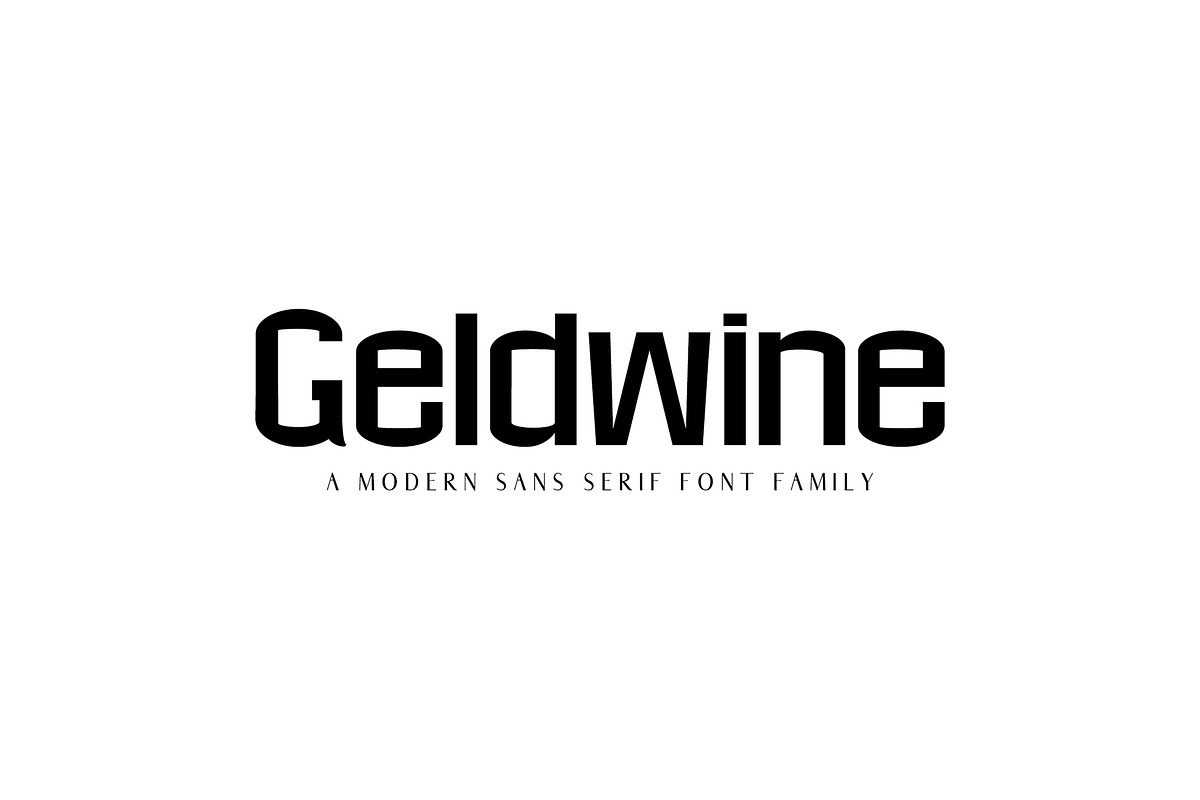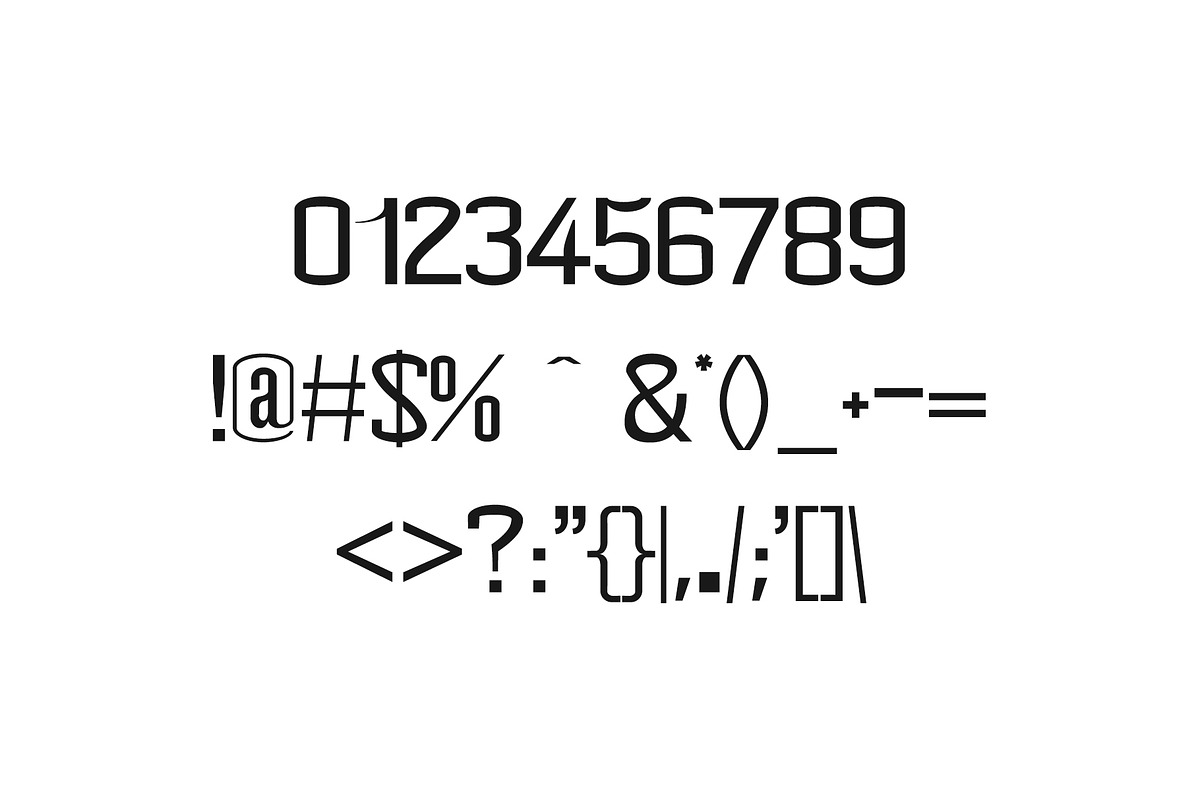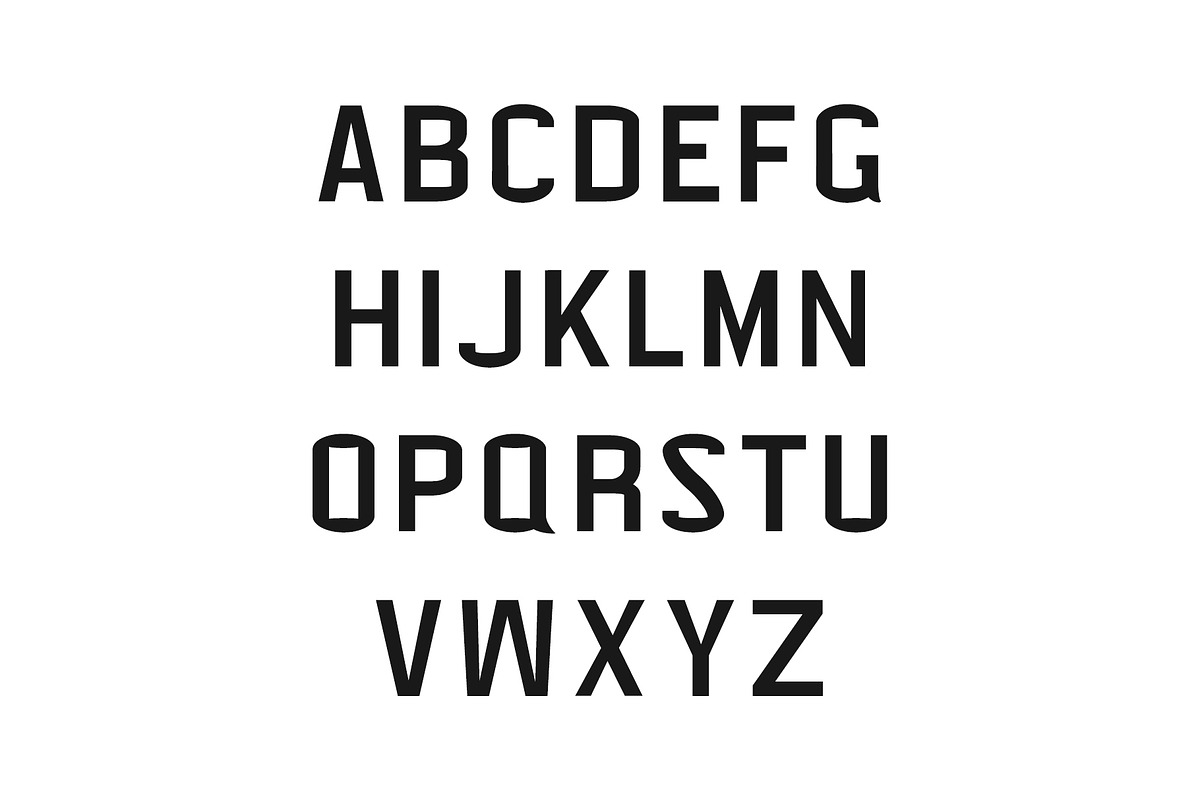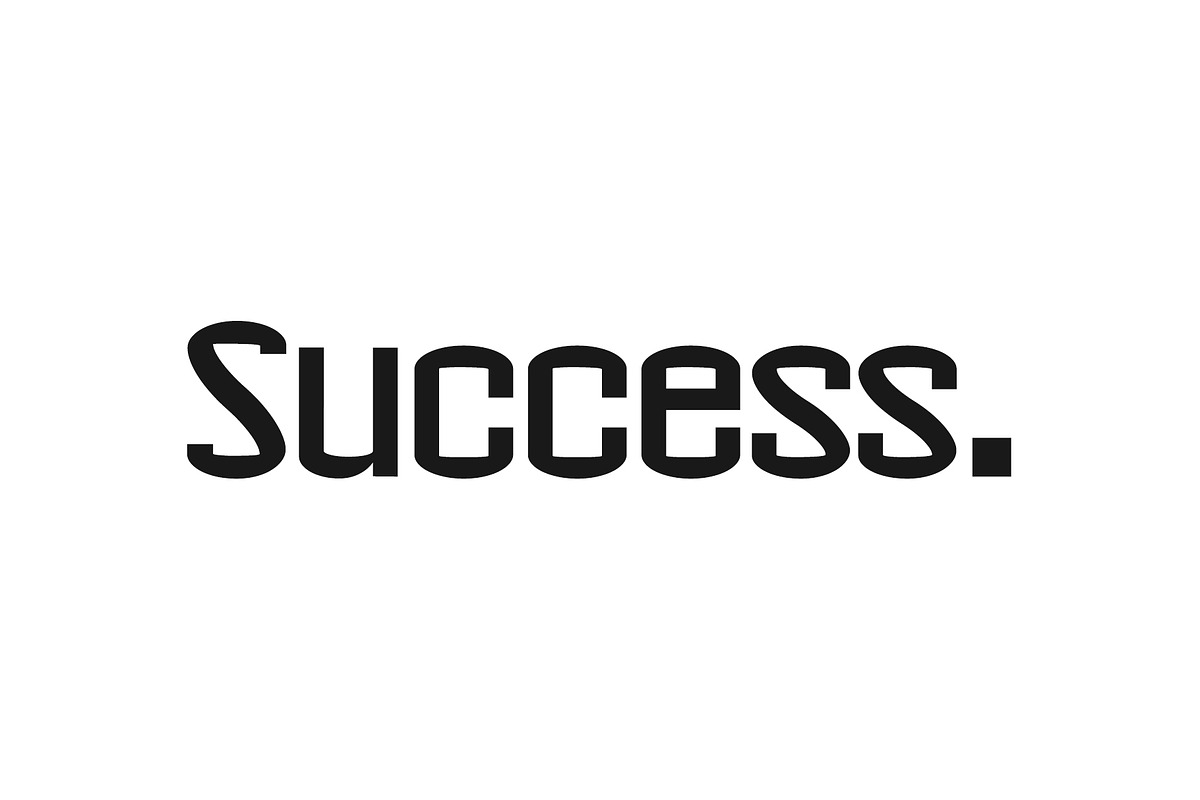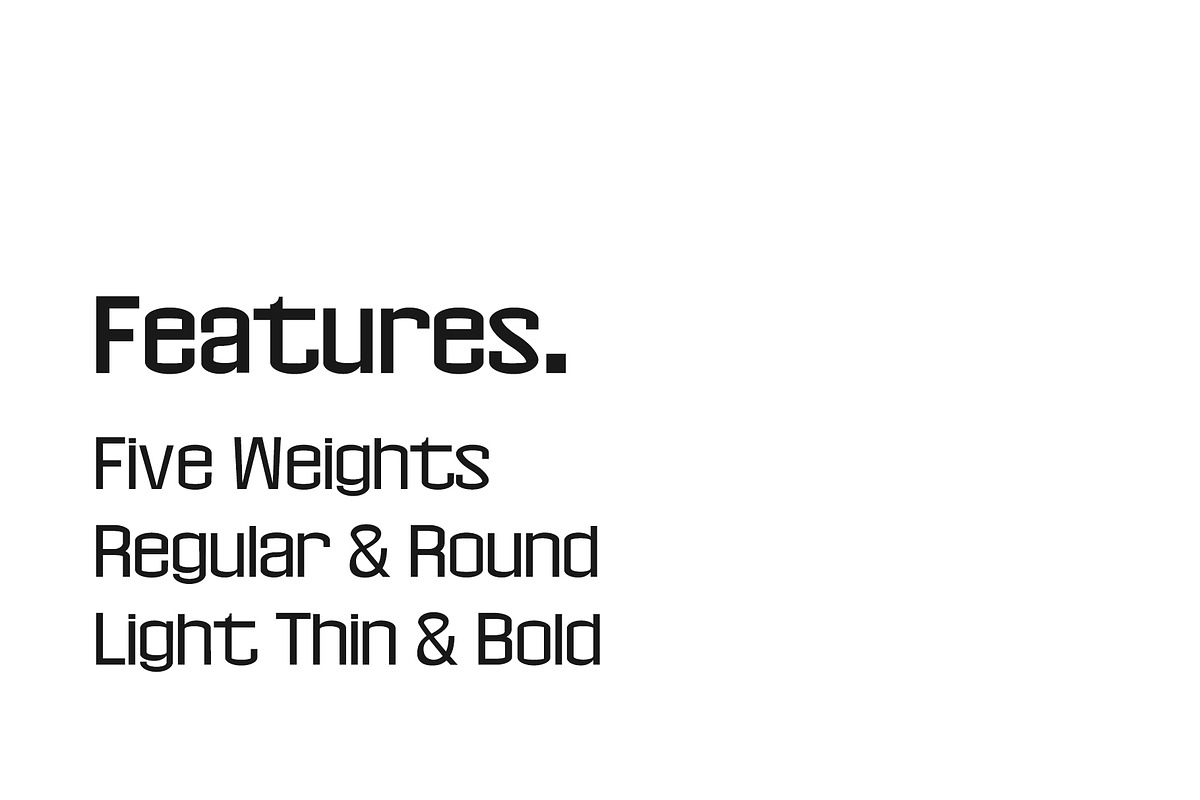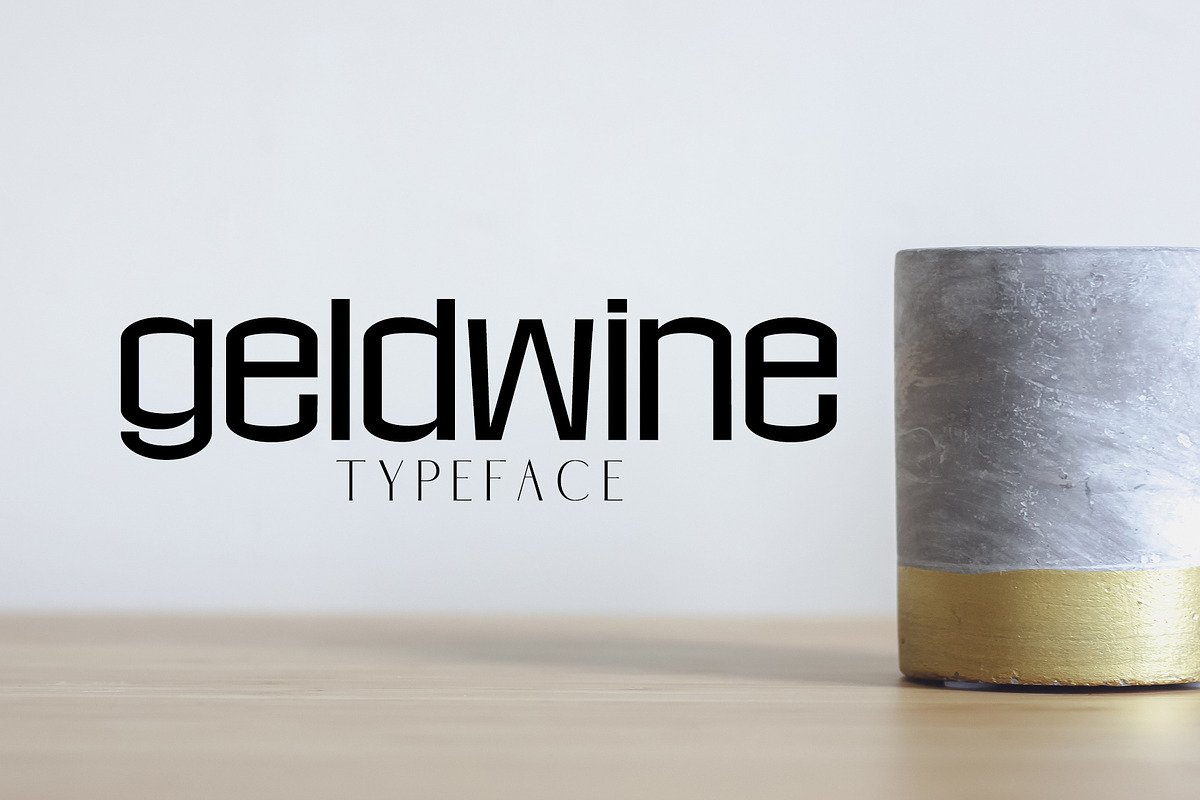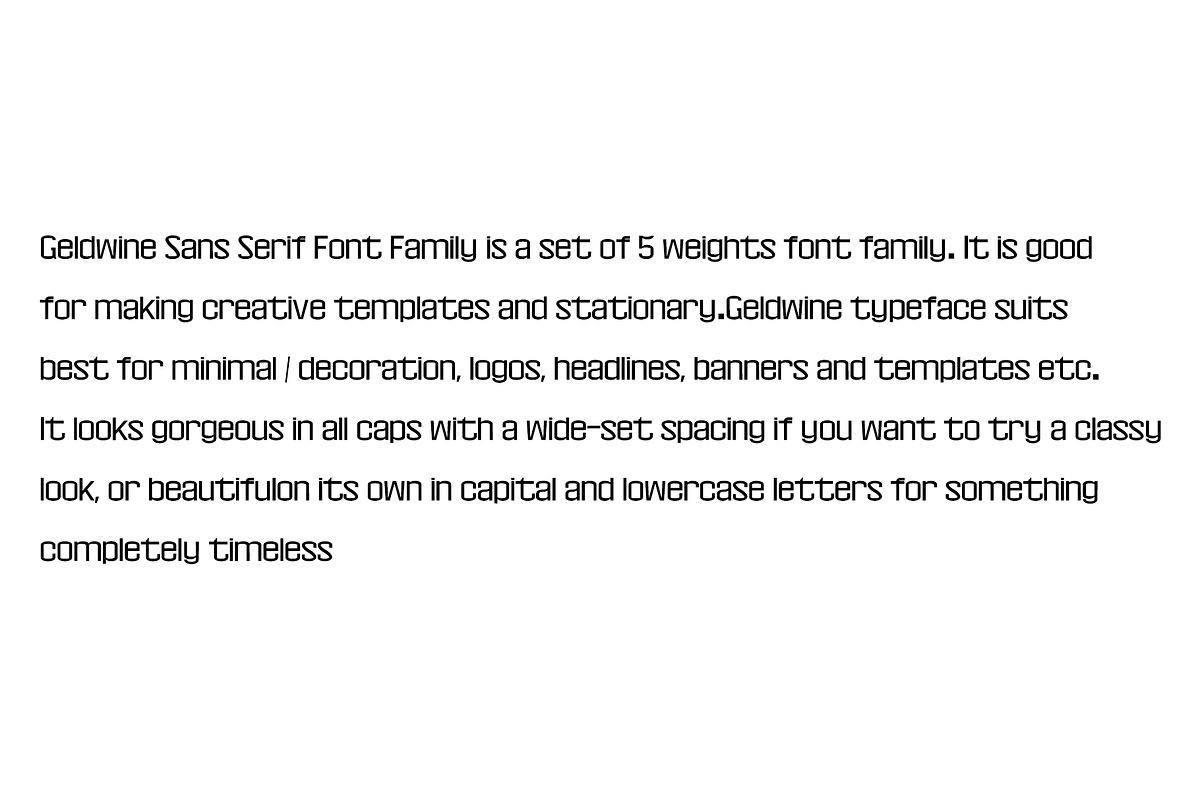
Geldwine Sans Serif Font Family
Geldwine Sans Serif Font Family is a outstanding modern sans serif font family. It comes with 5 weights. It is good for making creative templates and stationary. Geldwine typeface suits best for minimal / decoration, logos, headlines, banners and templates etc. It looks gorgeous in all caps with a wide-set spacing if you want to try a classy look, or beautifulon its own in capital and lowercase letters for something completely timeless
- Font Weight: Regular, Thin, Light, Round and Bold
- Uppercase Letters
- Lowercase Letters
- Number and Punctuation